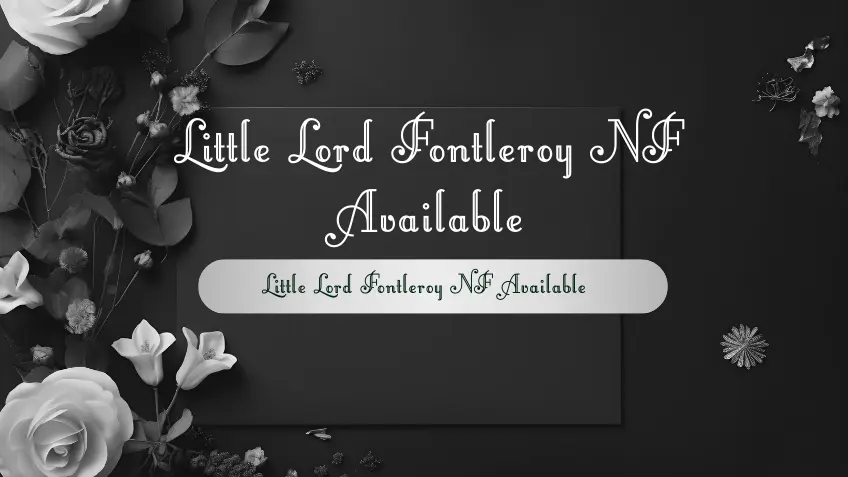
The font Little Lord Fontleroy NF Regular, designed by Nick Curtis, falls under the Display, Serif category & Little Lord Fontleroy NF font family. Its smooth, flowing letterforms make it a versatile choice for projects that require both elegance and readability. Little Lord Fontleroy NF is particularly well-suited for Headlines and Titles, Creative and Artistic Projects, Branding and Logos and Invitations and announcements. With its balance of simplicity and decorative appeal, this font brings a polished touch to both personal and professional designs.